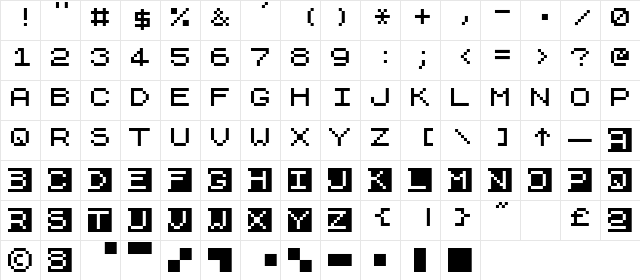
ZX81 Regular
Design Context for ZX81 Typeface
ZX81 offers clean, dependable letterforms without strong stylistic allegiance, making it a practical choice for designers who need flexibility.
Pro Tip: Use ZX81 in both headline and body roles to test its range before committing to a single application.